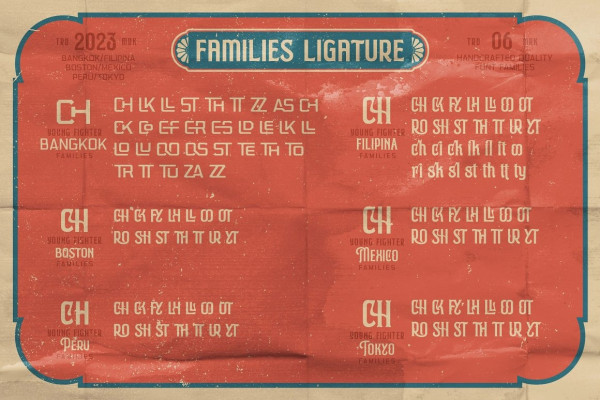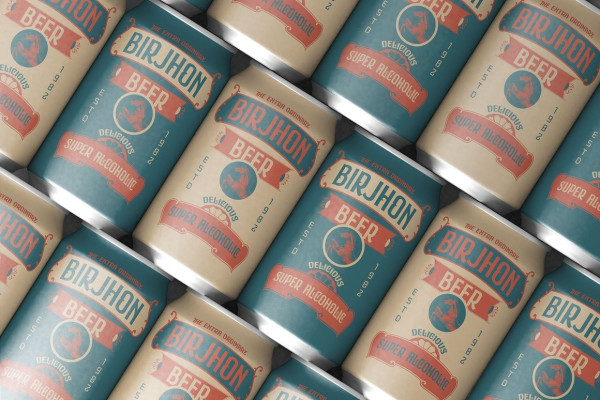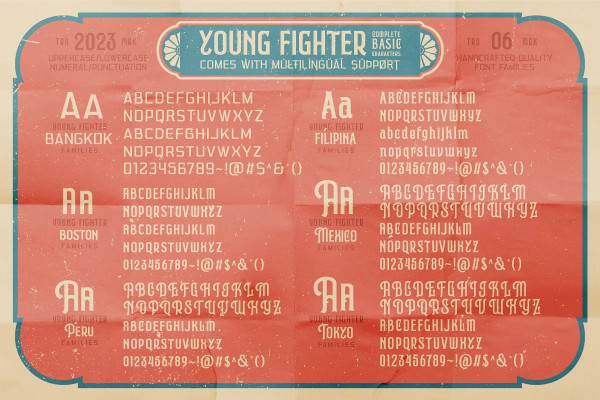
Young Fighter Font Family
Young Fighter Font Family – A Vintage Display Typeface with 6 Distinct Styles and Bonus Vector Illustrations!
Embrace the timeless charm of the “Young Fighter” Font Family, a carefully crafted vintage display typeface that brings a touch of nostalgia to your designs. This versatile font family features 6 unique styles, each designed to capture the essence of classic typography while adding a modern twist. With a seamless blend of serif, display, sans serif, and dingbat ornament options, the “Young Fighter” Font Family offers unparalleled versatility for your creative projects.
Serif Style: A classic serif option that exudes elegance and sophistication. Perfect for headlines, book covers, and vintage-themed designs.
Display Style: Make a bold statement with the display style, ideal for attention-grabbing titles and signage. Its distinct characters demand attention while maintaining legibility.
Sans Serif Style: For a modern take on vintage aesthetics, the sans serif style provides a clean and contemporary look. Great for minimalist designs that still evoke a sense of nostalgia.
Dingbat Ornaments: Elevate your designs with a collection of intricate dingbat ornaments. These decorative elements add a touch of finesse and intricacy to your compositions.
Bonus Vector Illustrations: As a special addition, we’re including a set of bonus vector illustrations that complement the vintage vibe of the “Young Fighter” Font Family. These illustrations can be seamlessly integrated into your projects for added visual impact.